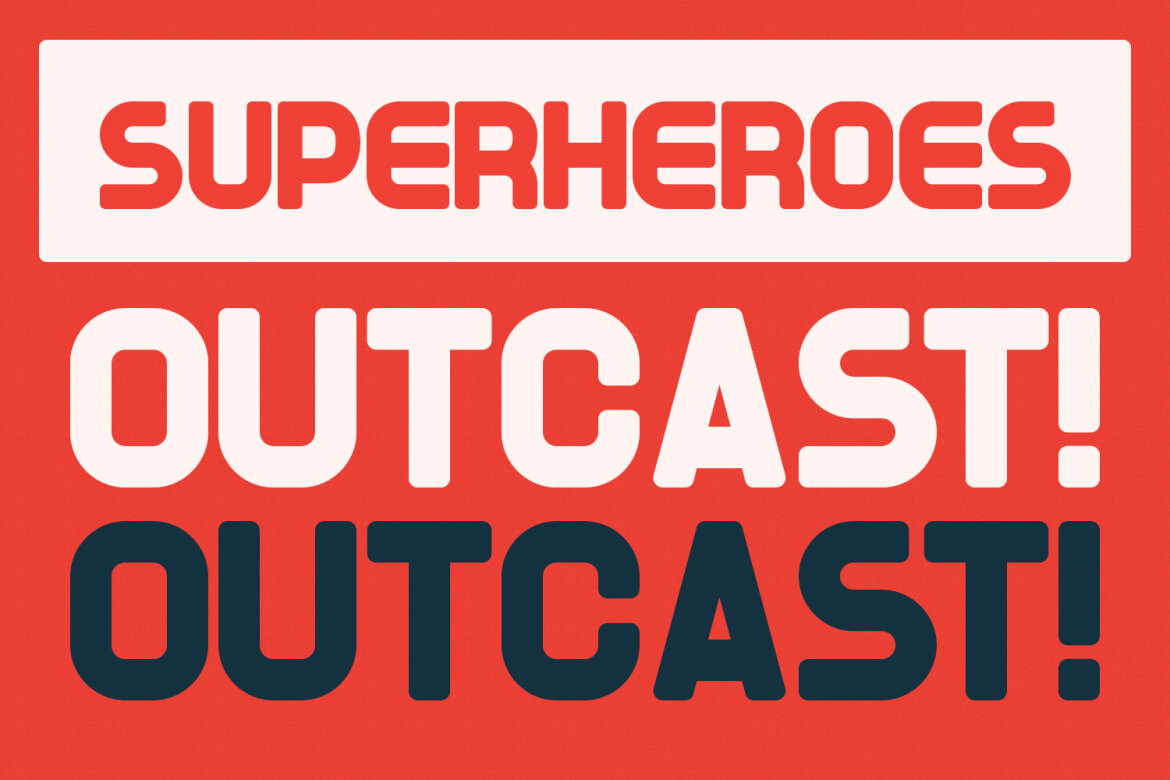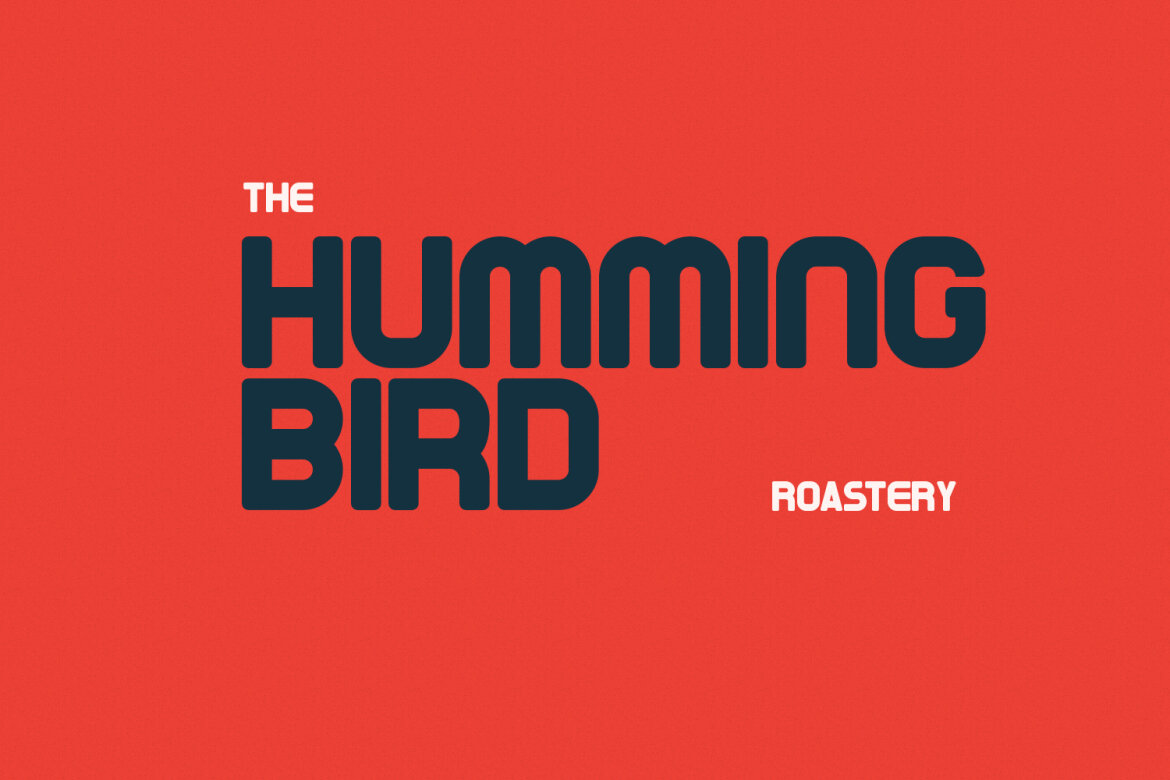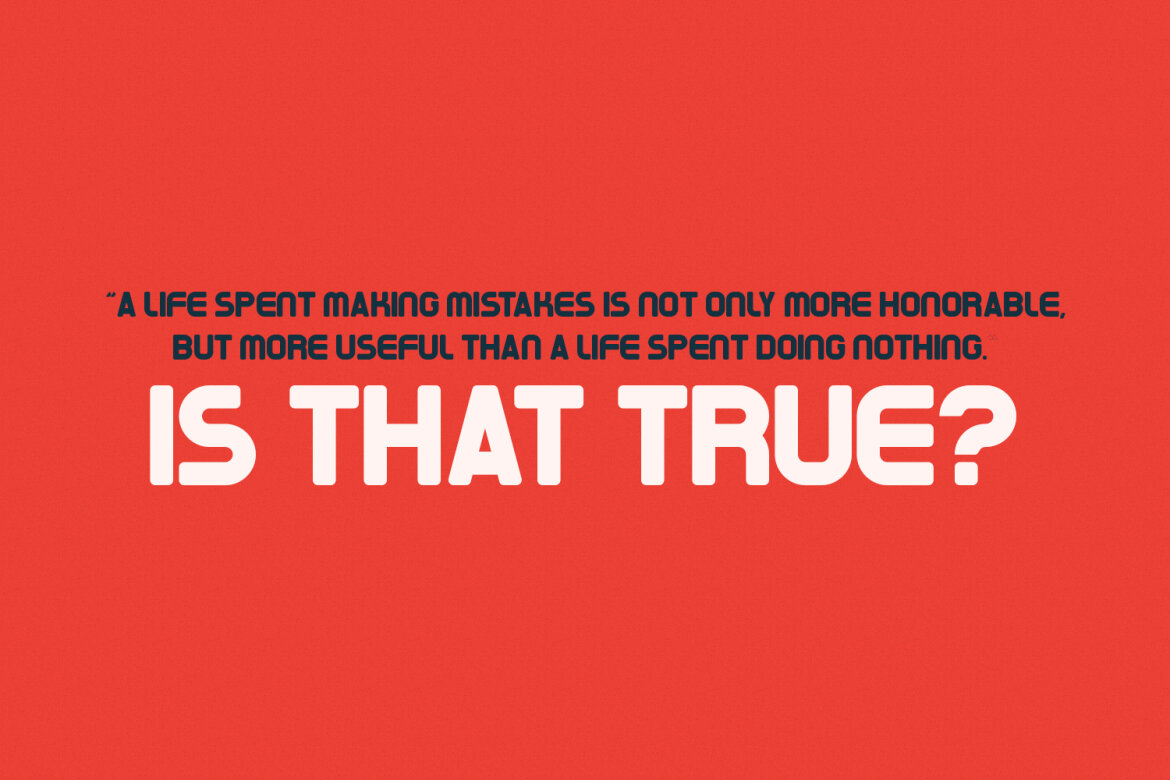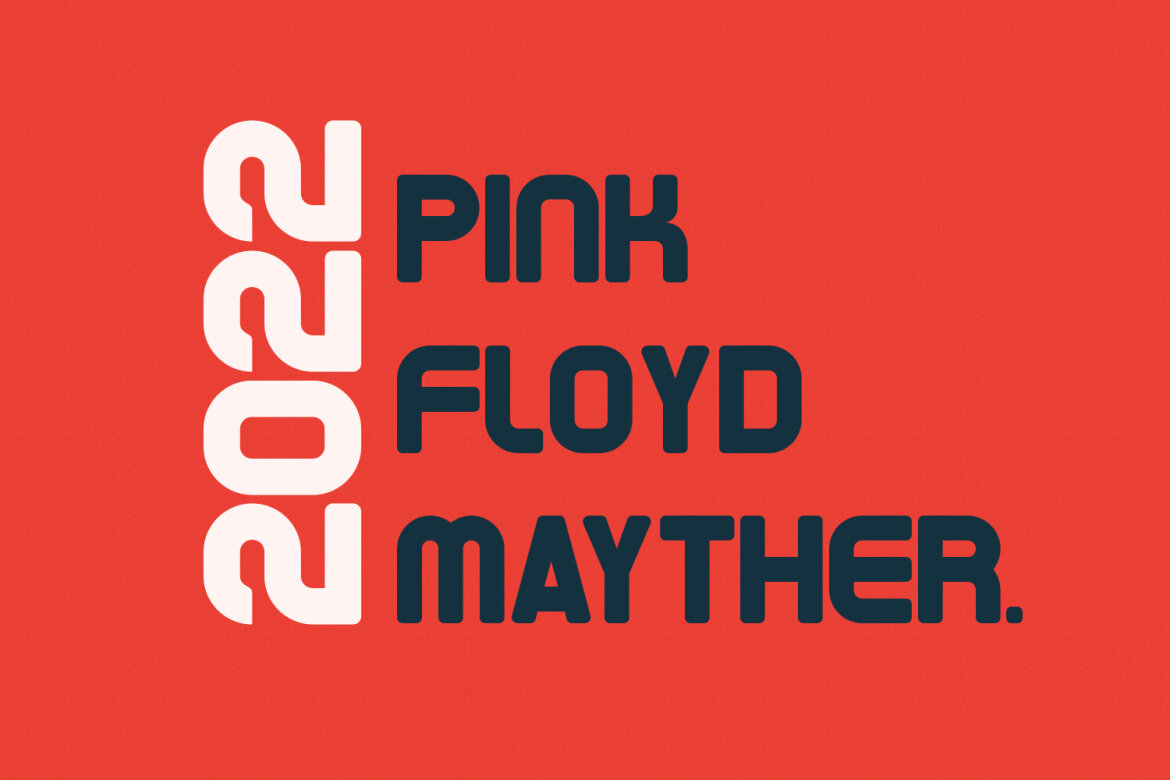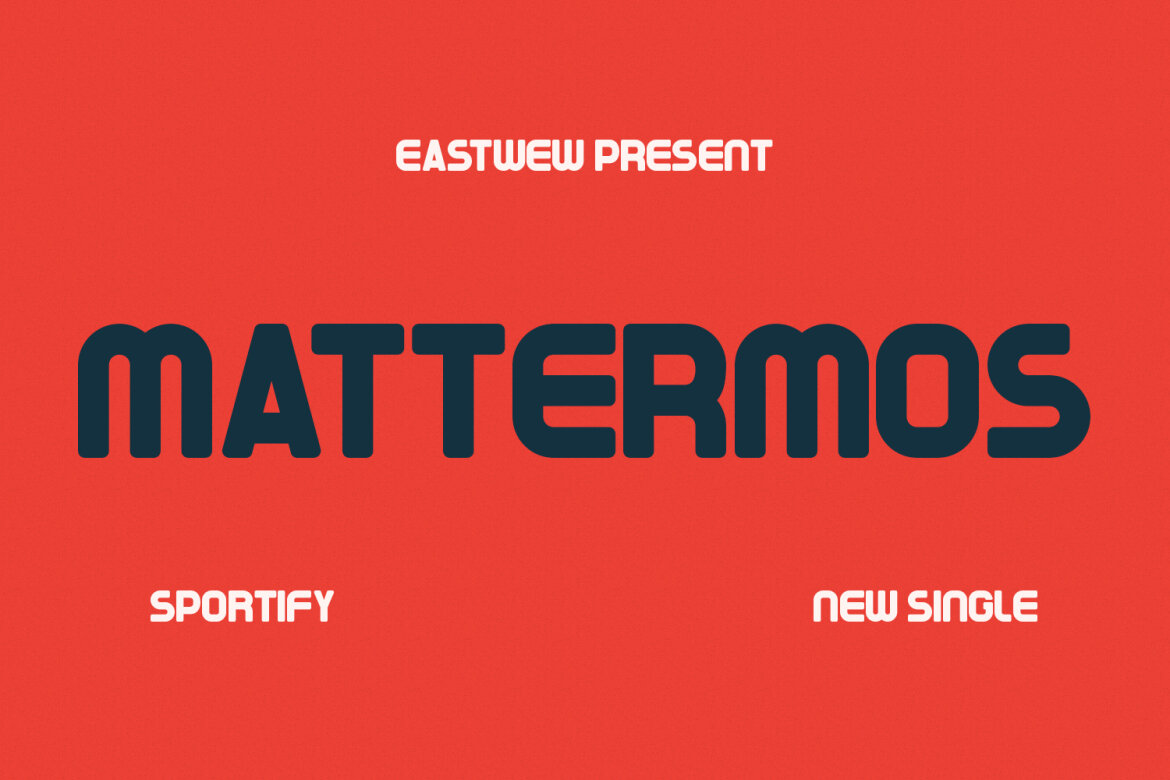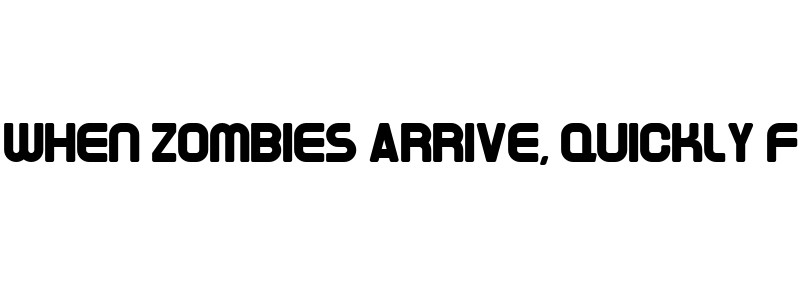
Cyklops FREE Retro Sans Font
Cyklops
Cyklops is a retros decorative sans display font. Bold stroke, fun character with a bit of ligatures and alternates. To give you an extra creative work. Cyklops font support multilingual more than 100+ language. This font is good for logo design, Social media, Movie Titles, Books Titles, a short text even a long text letter and good for your secondary text font with script or serif. Make a stunning work with Cyklops font.